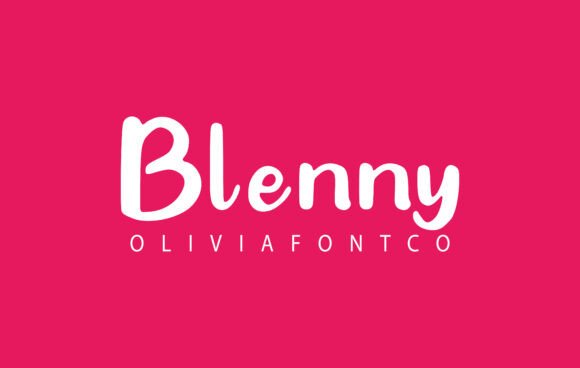
Blenny Font: The Ultimate Handwritten Font for Creative Projects
In the world of typography, fonts play a crucial role in conveying the tone and personality of a brand or creative project. Among the numerous fonts available, Blenny Font stands out as a unique and authentic handwritten font with a romantic touch. Designed to be a true favorite among designers and creative enthusiasts, Blenny Font has the potential to elevate your projects to new heights. In this article, we’ll explore the features, benefits, and uses of Blenny Font, and why it’s an excellent choice for your next creative endeavor.
What is Blenny Font?
Blenny Font is a carefully crafted handwritten font that exudes a sense of romance and elegance. Its authentic and organic feel makes it perfect for a wide range of creative projects, from magazine headlines and social media graphics to branding, wedding invitations, and more. The font’s legibility and versatility make it an excellent choice for both title and body text, allowing you to experiment with different styles and layouts.
Key Features of Blenny Font
- Authentic Handwritten Style: Blenny Font boasts a genuine handwritten look that adds a personal touch to your projects.
- Romantic Touch: The font’s elegant and cursive style makes it perfect for projects that require a romantic or sophisticated feel.
- Legibility: Blenny Font is designed to be highly legible, making it suitable for both title and body text.
- Versatility: The font can be used for a wide range of creative projects, from print materials to digital content.
Benefits of Using Blenny Font
Using Blenny Font in your creative projects offers several benefits, including:
- Unique and Distinctive Look: Blenny Font’s authentic handwritten style sets it apart from other fonts, giving your projects a unique and distinctive look.
- Emotional Connection: The font’s romantic touch helps create an emotional connection with your audience, making your message more relatable and engaging.
- Flexibility: Blenny Font’s legibility and versatility make it suitable for various design applications, from headlines to body text.
- Time-Saving: With Blenny Font, you can save time and effort in designing and refining your typography, allowing you to focus on other creative aspects of your project.
Use Cases for Blenny Font
Blenny Font’s versatility makes it suitable for a wide range of creative projects, including:
- Magazine Headlines: Add a touch of elegance and sophistication to your magazine headlines with Blenny Font.
- Social Media Graphics: Create engaging social media graphics with Blenny Font’s authentic handwritten style.
- Branding: Use Blenny Font to create a unique and memorable brand identity that stands out from the crowd.
- Wedding Invitations: Add a romantic touch to your wedding invitations and save-the-date cards with Blenny Font.
- Cards and Stationery: Create beautiful and personalized cards and stationery with Blenny Font’s elegant and cursive style.
Tips for Using Blenny Font Effectively
To get the most out of Blenny Font, follow these tips:
- Experiment with Font Sizes: Play with different font sizes to create visual hierarchy and emphasize important information.
- Pair with Other Fonts: Combine Blenny Font with other fonts to create a unique and harmonious typography.
- Adjust Line Spacing: Adjust line spacing to improve readability and create a clean design.
- Use Colors Wisely: Choose colors that complement Blenny Font’s elegant and cursive style.
In conclusion, Blenny Font is an exceptional handwritten font that offers a unique and authentic look with a romantic touch. Its legibility, versatility, and flexibility make it an excellent choice for a wide range of creative projects. By incorporating Blenny Font into your design workflow, you can elevate your projects to new heights and create stunning visual content that resonates with your audience.